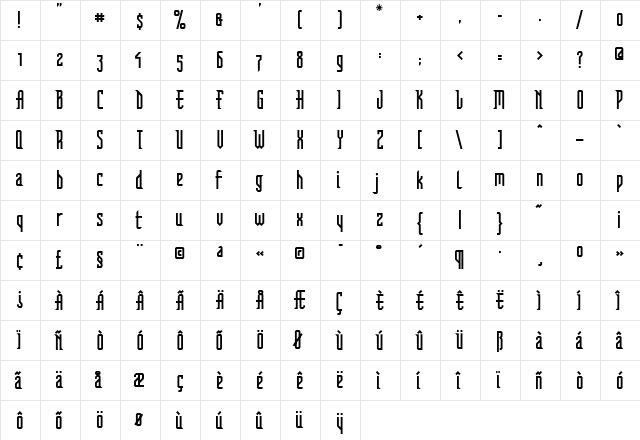
Disney Tomorrow Land Regular
Design Context for Disney Tomorrow Land Typeface
Disney Tomorrow Land is a composed and adaptable typeface that performs quietly and consistently across a wide range of design contexts.